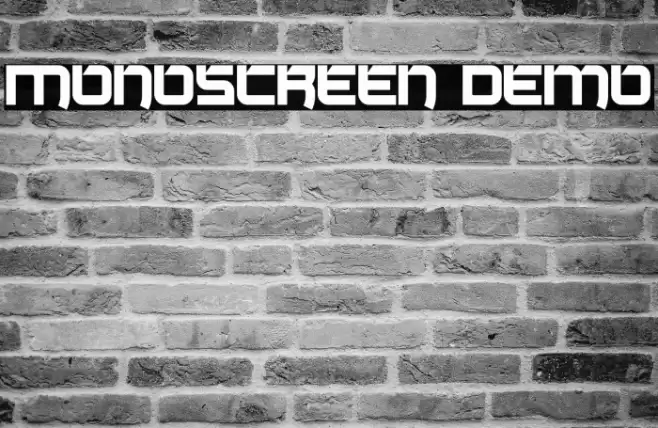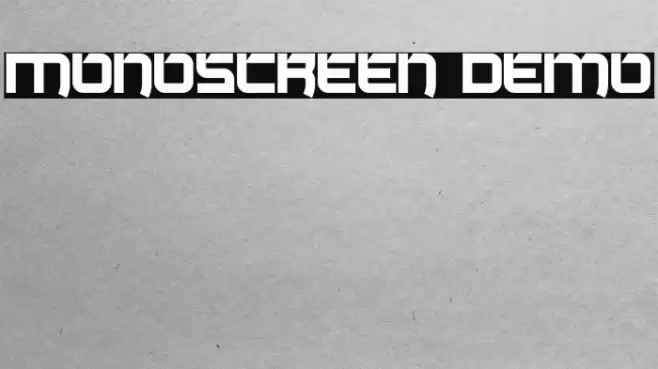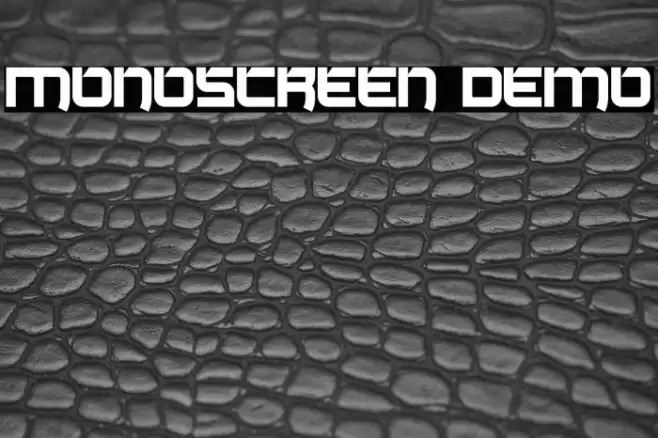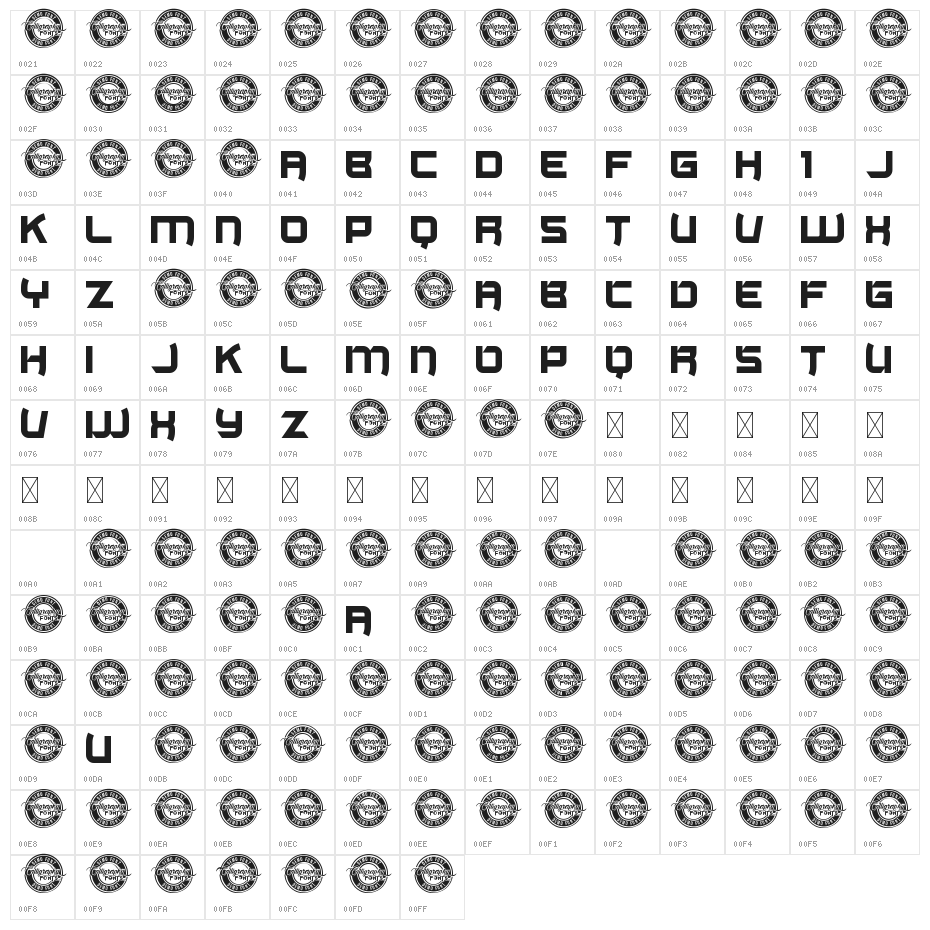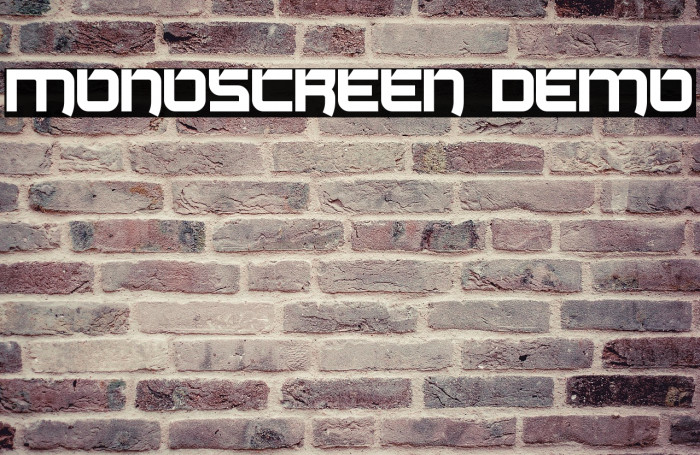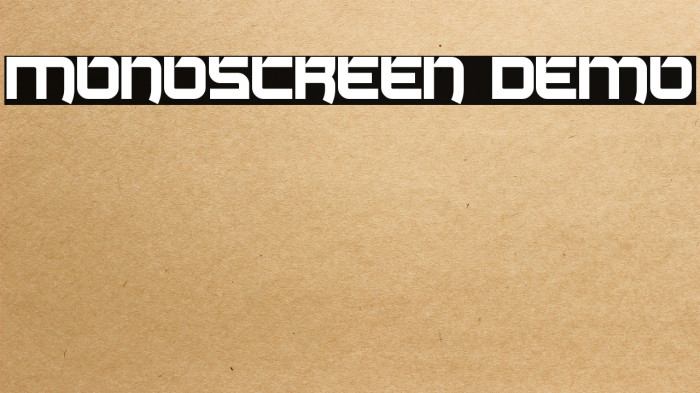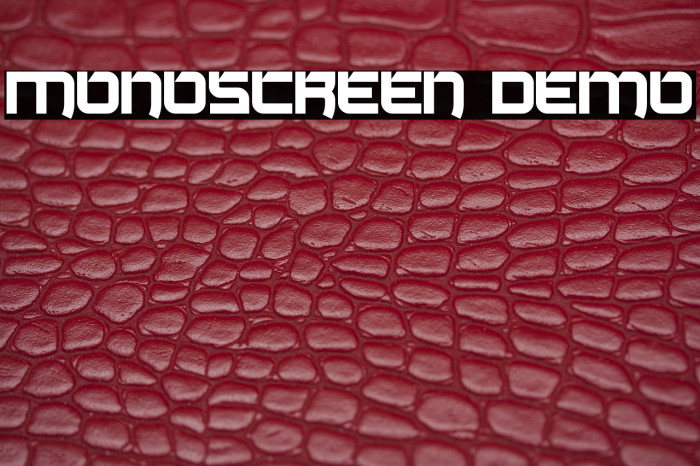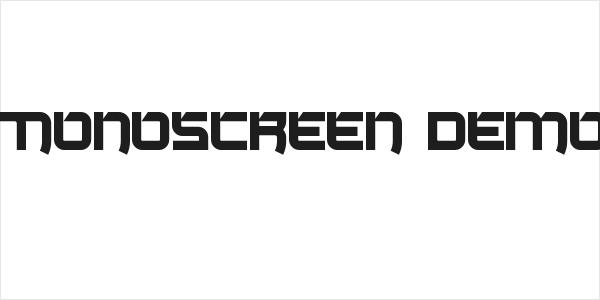
Monoscreen Demo Font
Monoscreen Demo Description
This font features a bold, geometric style with a futuristic and digital aesthetic. The characters are constructed with sharp angles and straight lines, giving them a mechanical and structured appearance. The uppercase letters are uniform in height, while the lowercase letters maintain a consistent style, enhancing readability. The numerals and special characters follow the same design principles, ensuring a cohesive look across all text elements. The font's distinct style makes it suitable for modern and tech-oriented projects, where a strong visual impact is desired.
A bold, geometric font with a futuristic and digital aesthetic from Regular fonts.
- Proposed Projects: Ideal for tech branding, digital interfaces, video game design, and futuristic posters.